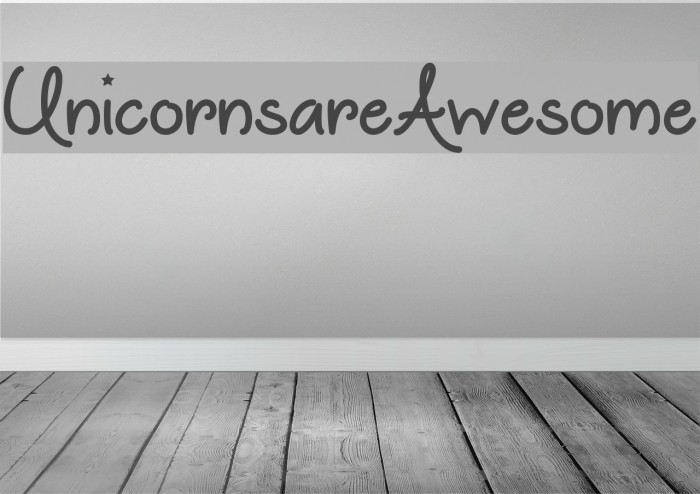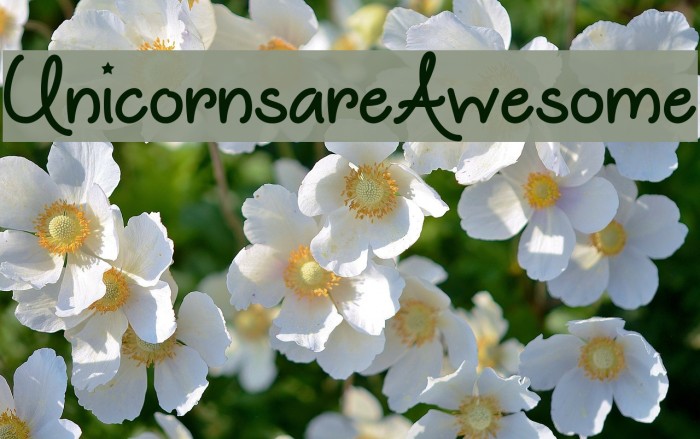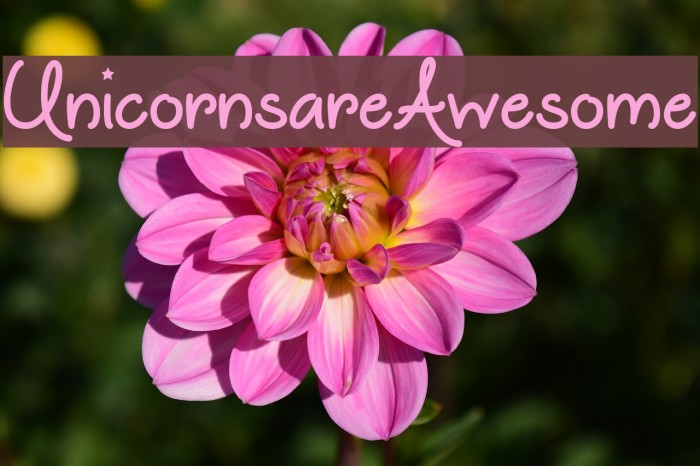
UnicornsareAwesome Font
This playful and whimsical font features a handwritten style with a touch of fantasy. The letters are characterized by their curly and flowing strokes, giving them a lively and dynamic appearance. The uppercase letters are particularly ornate, with loops and swirls that add a sense of movement. The lowercase letters maintain a consistent style, with some characters like 'g' and 'j' having distinctive tails. The numbers are bold and easy to read, while the special characters include charming details like stars and dots. Overall, this font exudes a sense of fun and creativity, making it ideal for projects that require a lighthearted and imaginative touch.
A whimsical, handwritten font with playful curls and swirls.
- Proposed Projects: Perfect for children's books, greeting cards, playful branding, and creative invitations.
- Use Case: Logos, Headlines, Creative projects